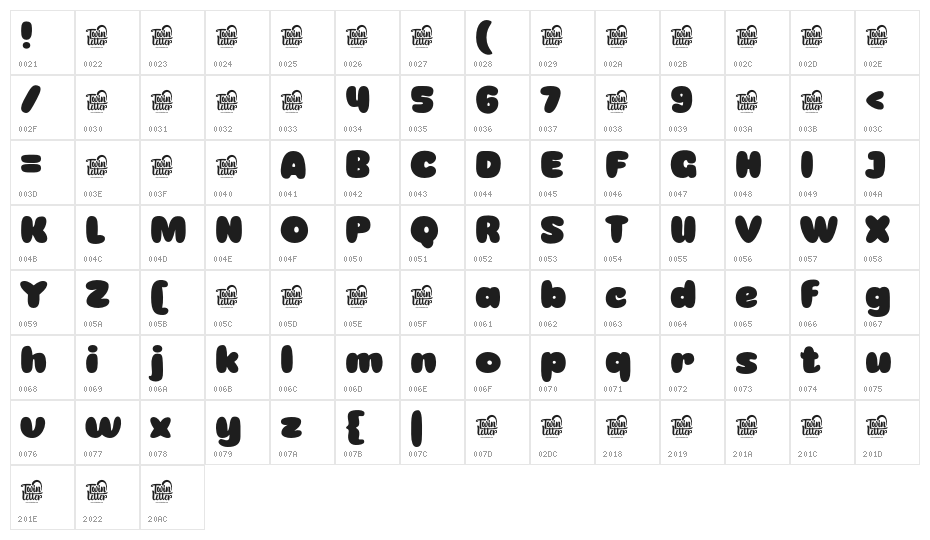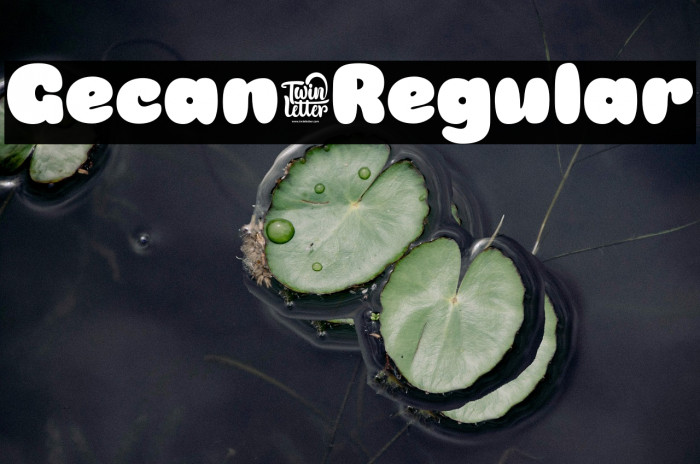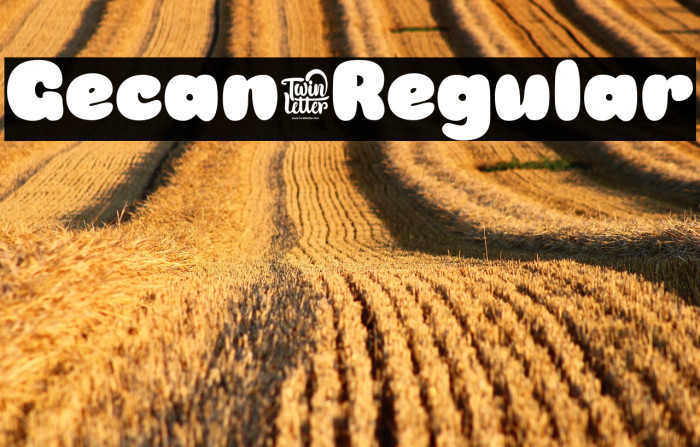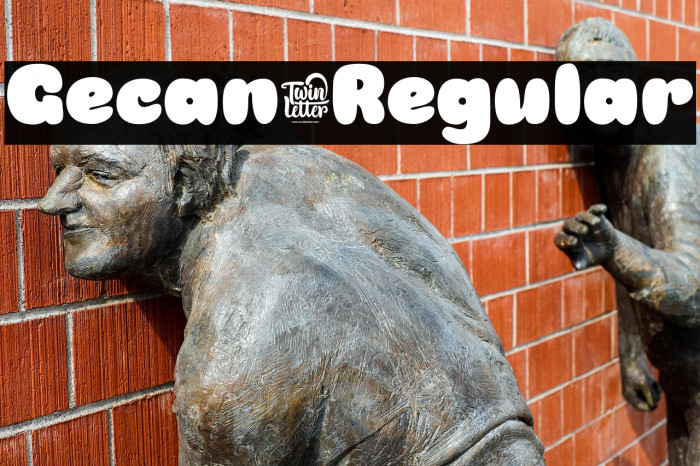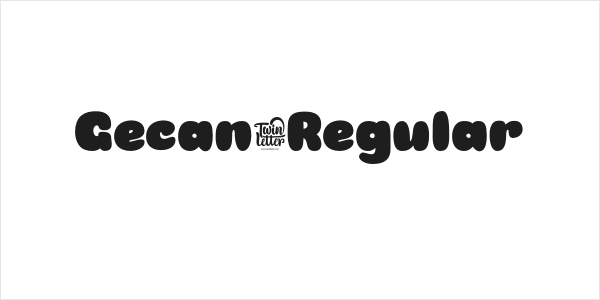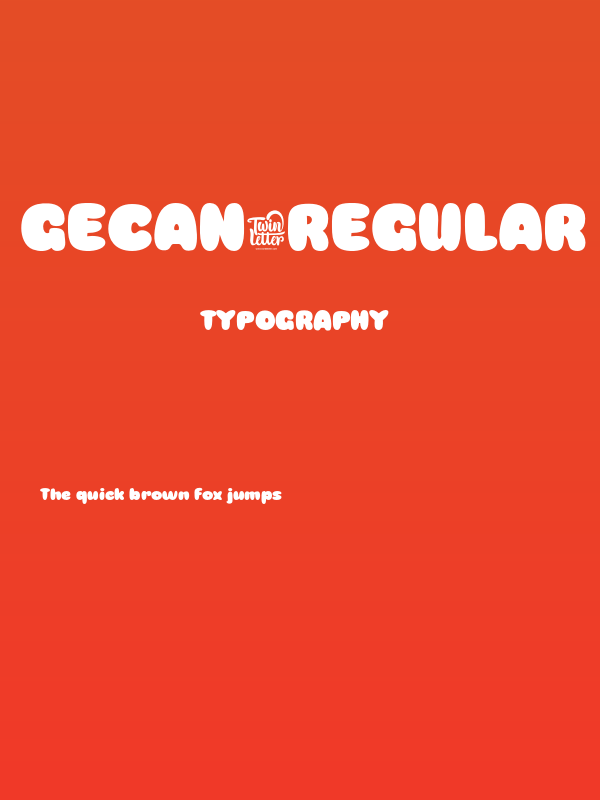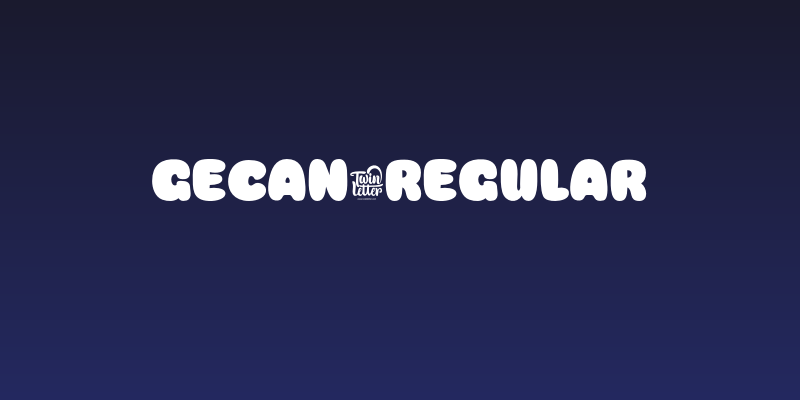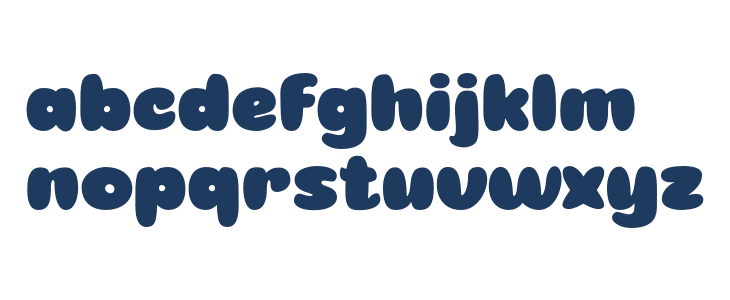
Gecan-Regular Font
This font features a bold, rounded style with a playful and friendly appearance. The characters are thick and have a uniform stroke width, giving them a strong presence on the page. The rounded edges and smooth curves contribute to its approachable and informal vibe, making it suitable for designs that aim to be inviting and fun. The font maintains consistent spacing between characters, ensuring readability while preserving its unique style. Its boldness and rounded form make it stand out, ideal for capturing attention in various design contexts.
| Proposed Projects | Ideal for children's books, playful branding, posters, and social media graphics. |